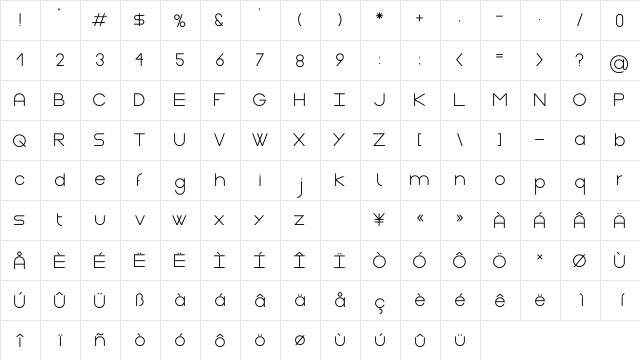
Gasalt Regular
Design Context for Gasalt Typeface
Gasalt offers clean, dependable letterforms without strong stylistic allegiance, making it a practical choice for designers who need flexibility.
Pro Tip: Use Gasalt in both headline and body roles to test its range before committing to a single application.